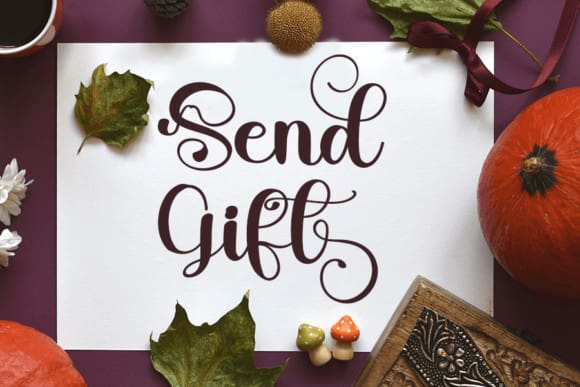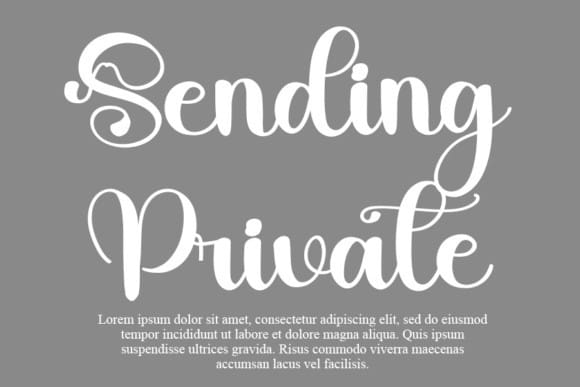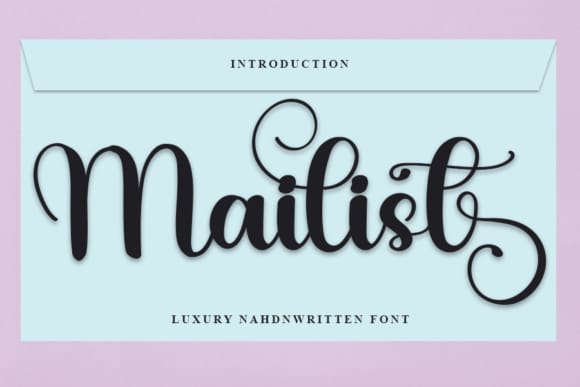
Mailist Script Font
Mailist Script Font is a trendy handwritten font with a contemporary atmosphere and impeccable form, inspired by a timeless classic calligraphy. It will add elegance and class to any of your design projects. This font is PUA encoded which means you can access all the glyphs and swashes with ease!